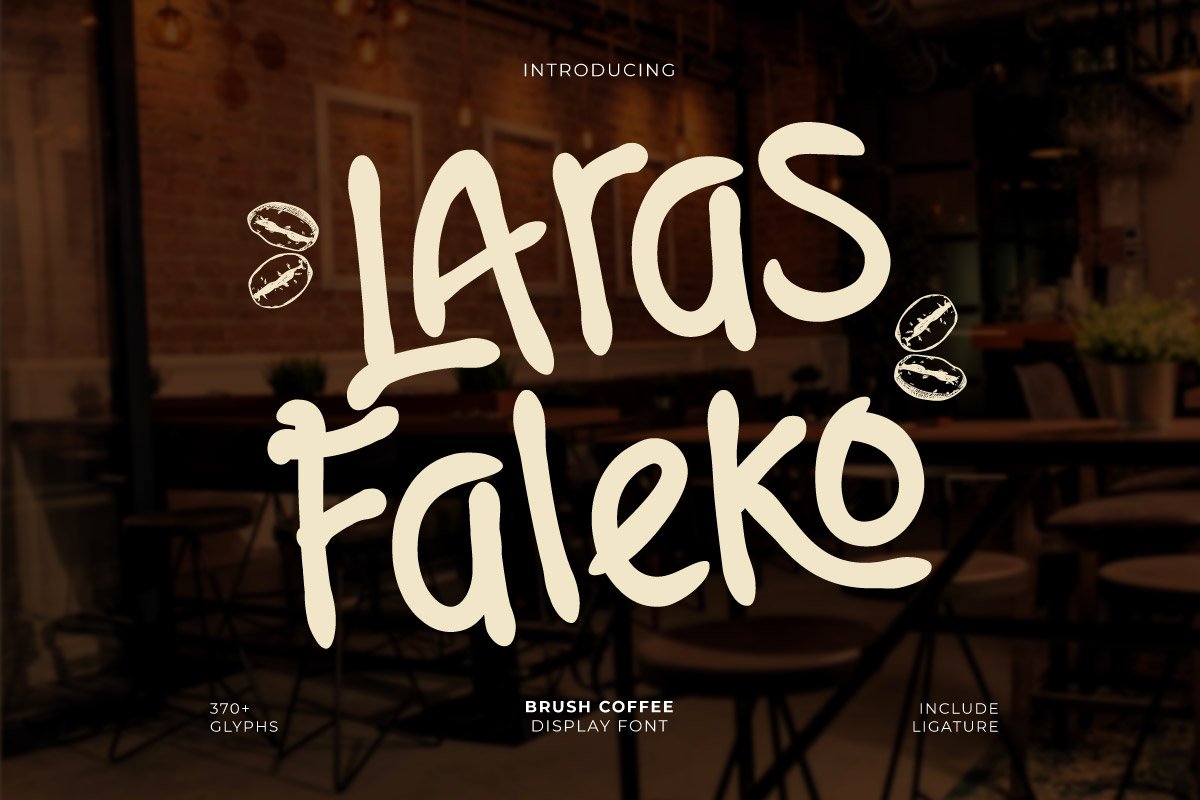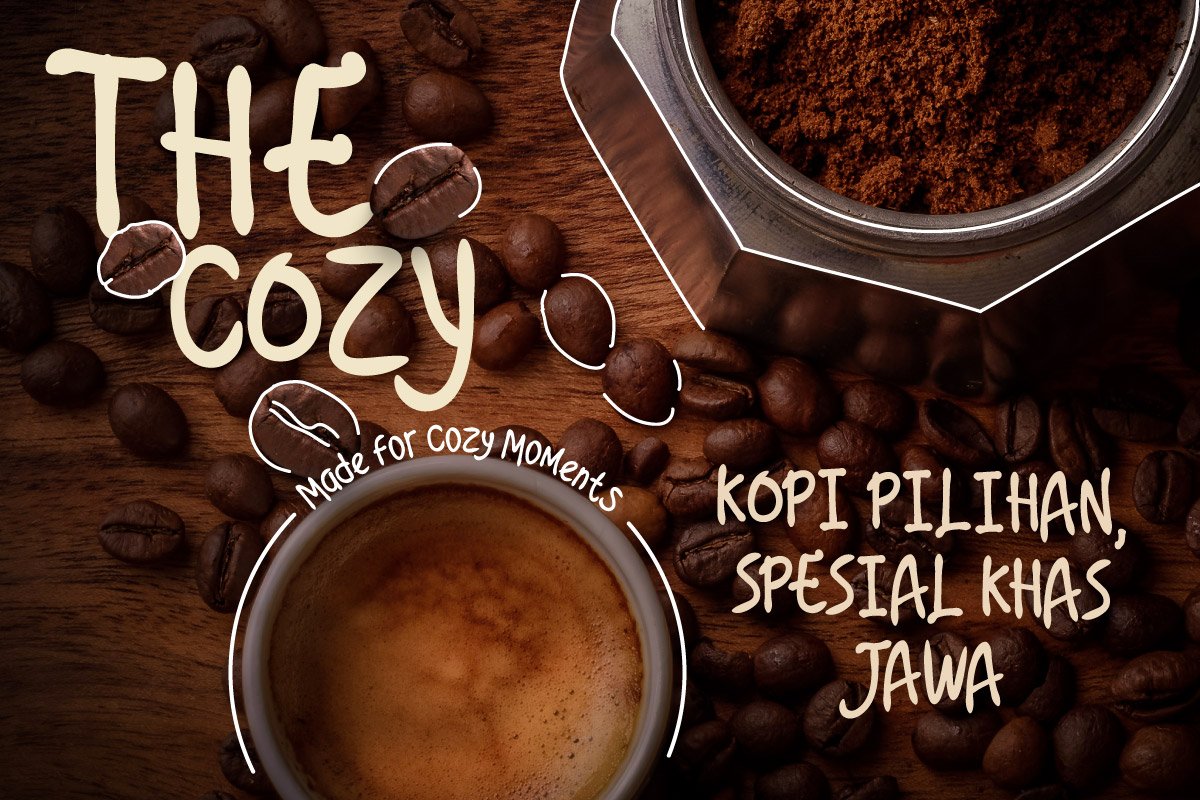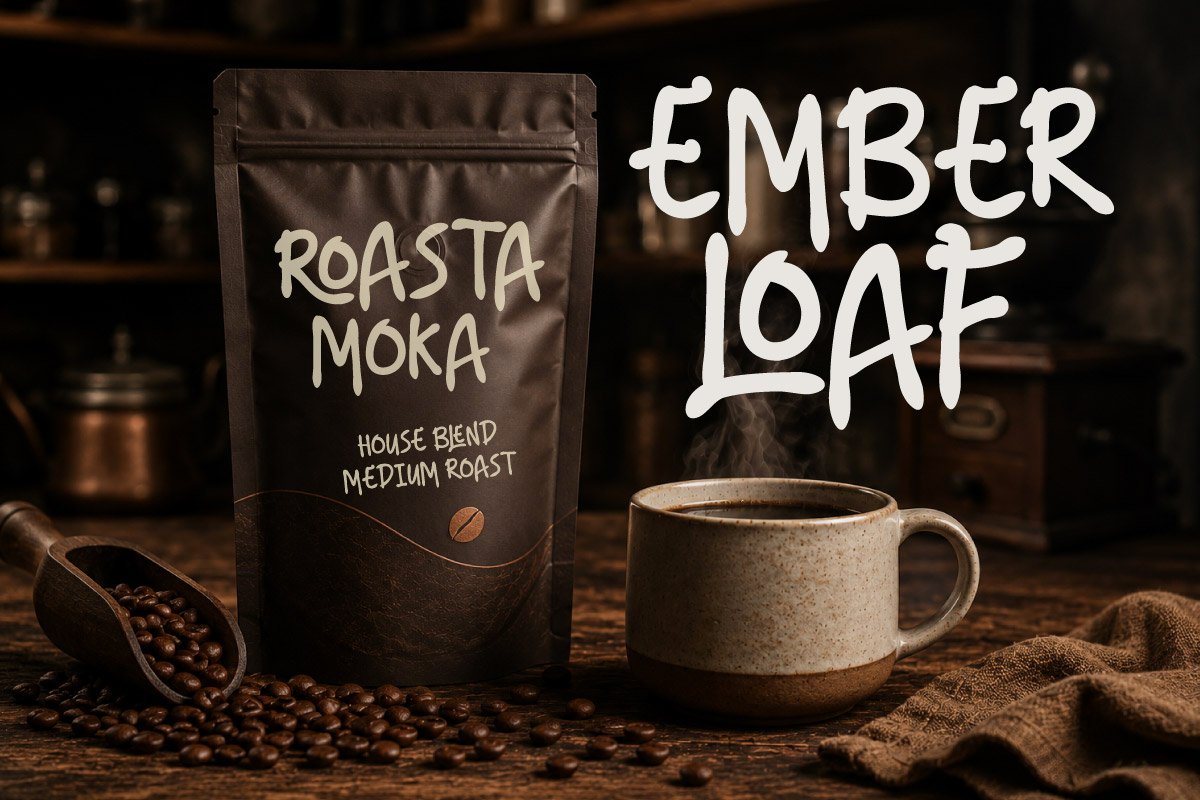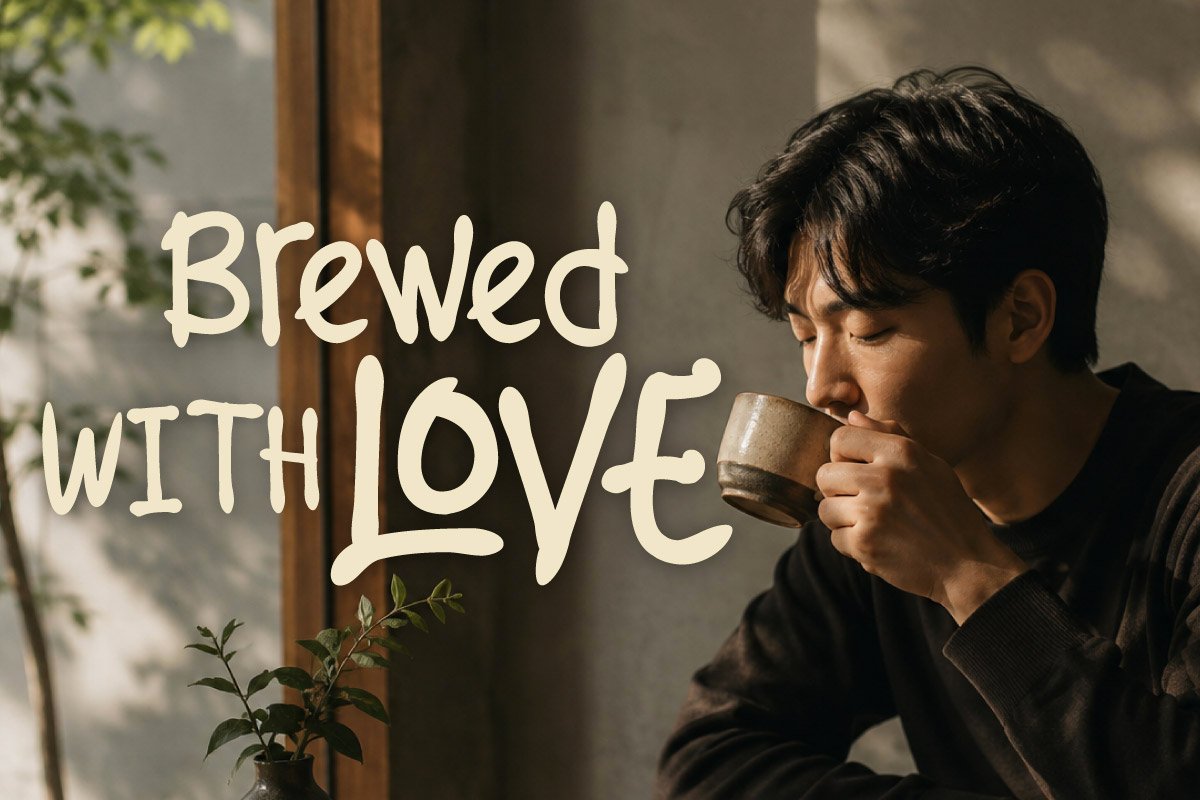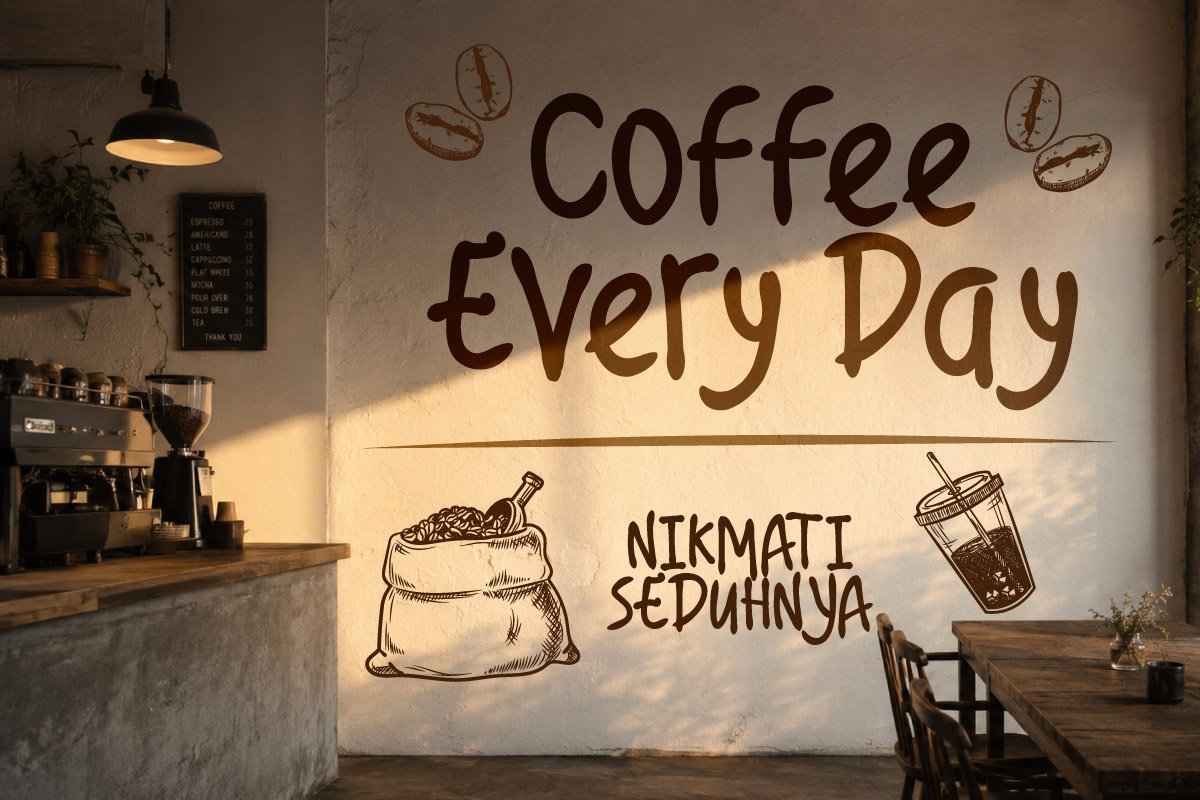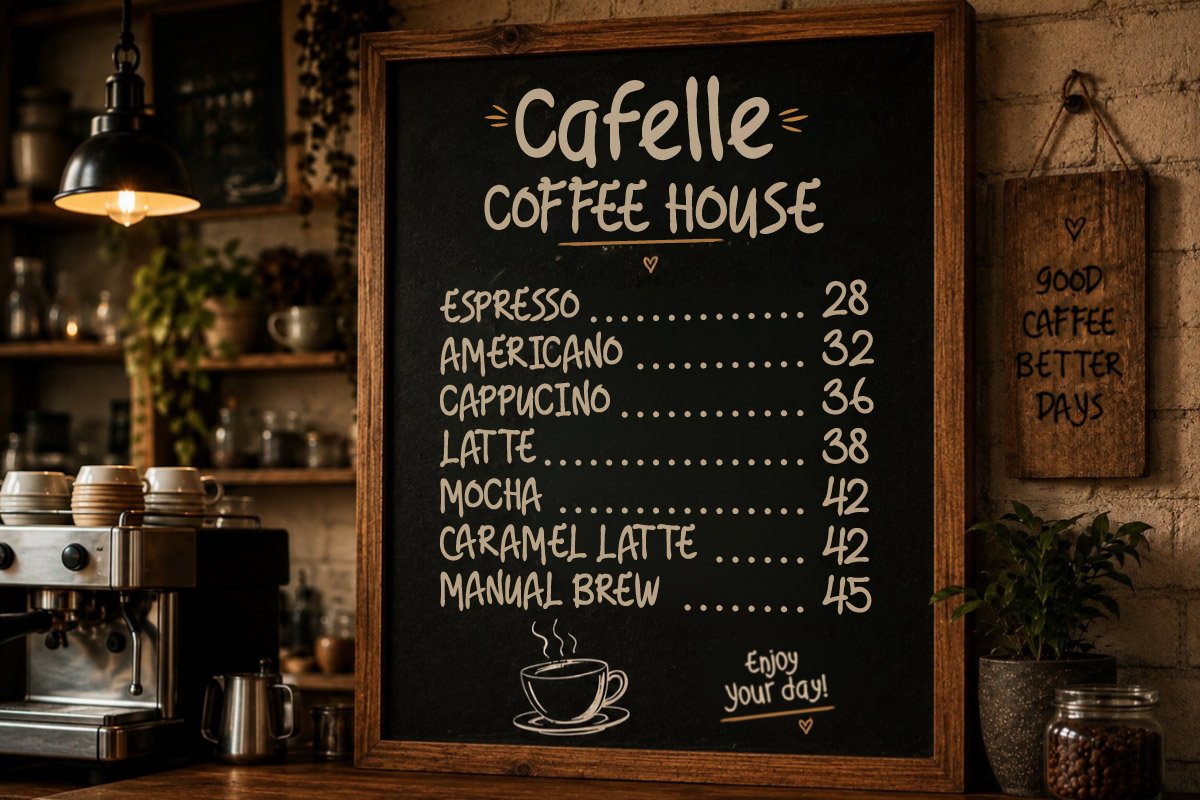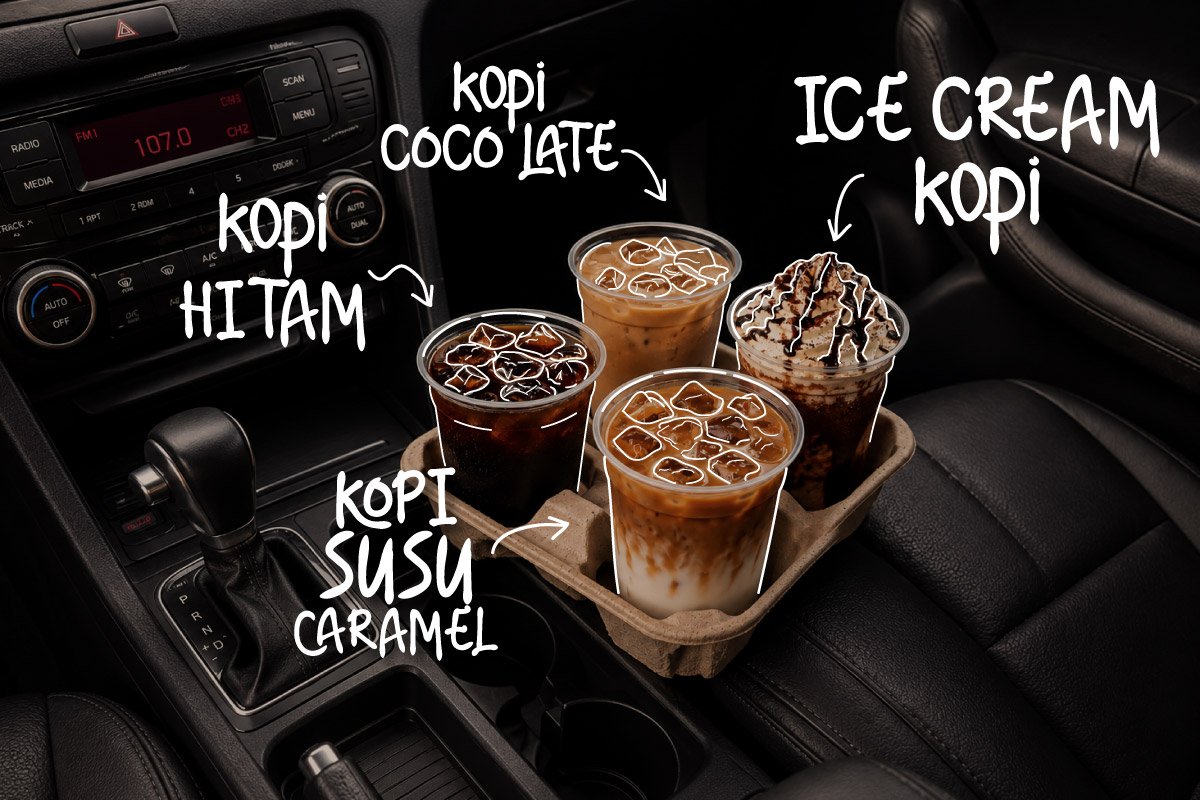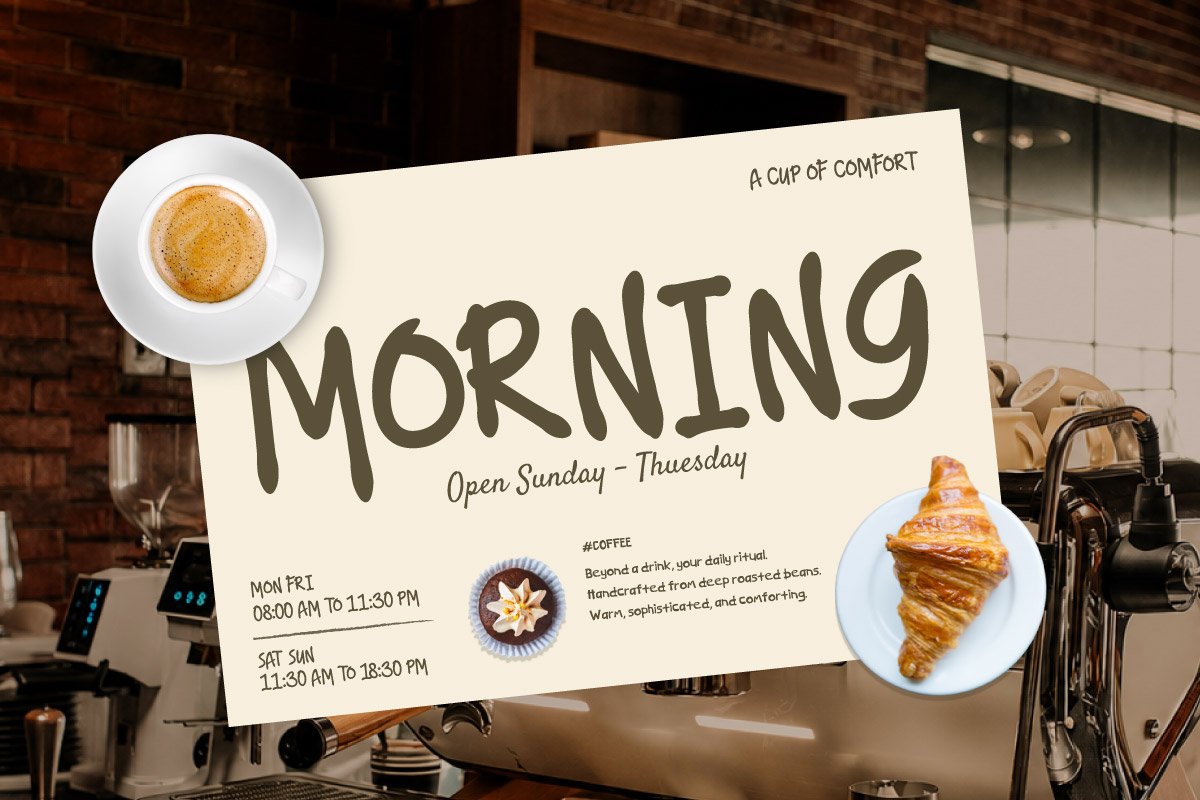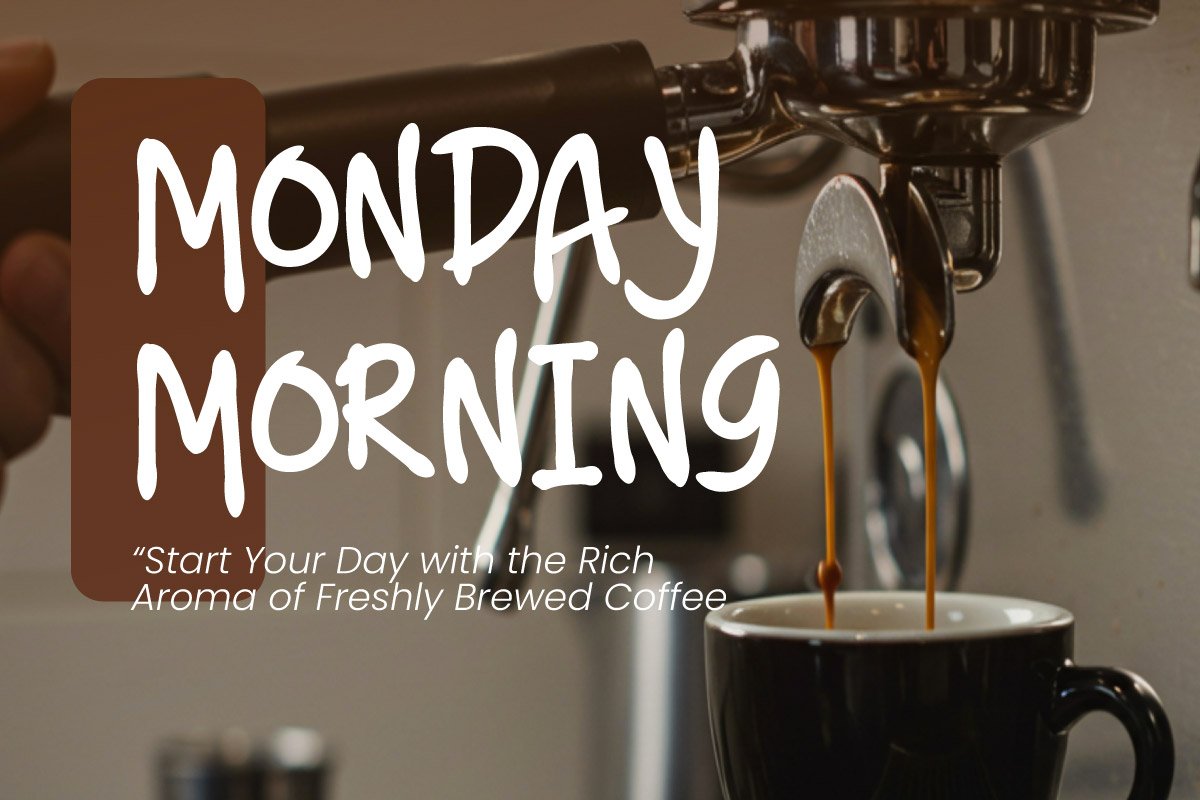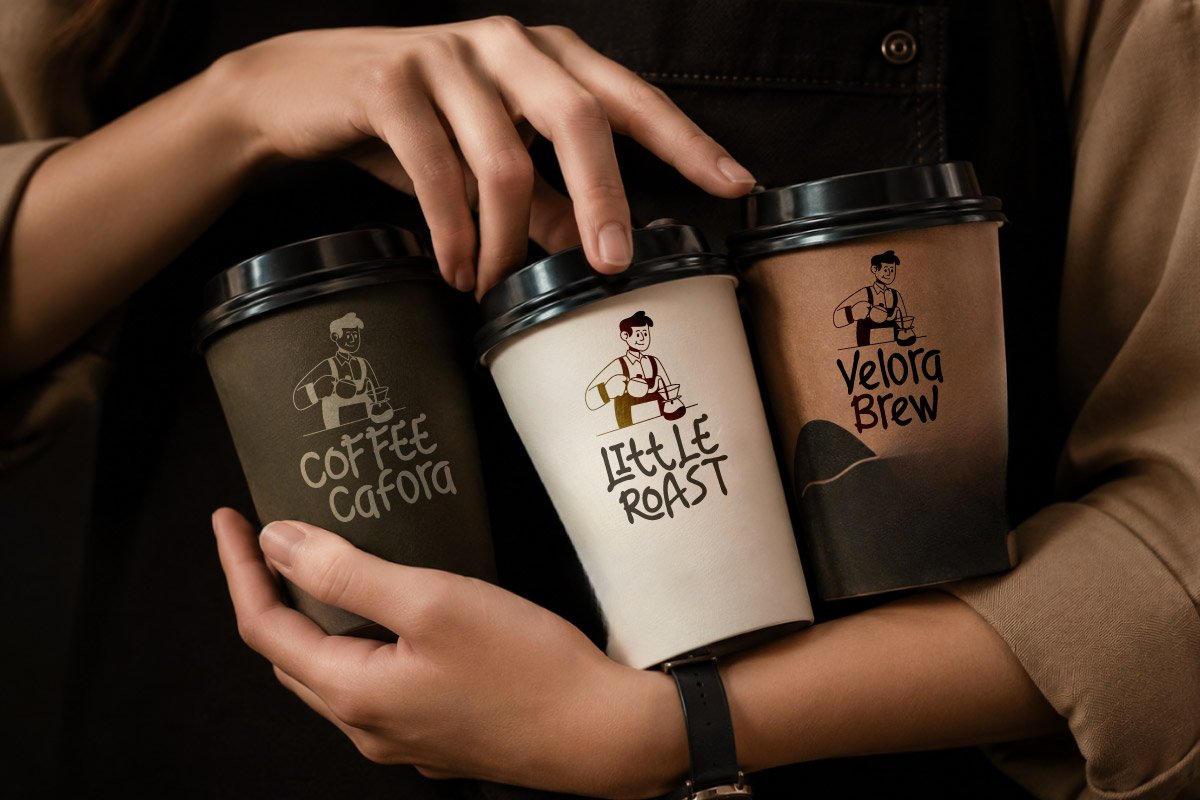
Laras Faleko – Brush Coffee Display Font
Laras Faleko is a striking brush display font that highlights thick, organic, and natural brush strokes. Specifically designed to deliver a warm, cozy, and friendly vibe, this font provides an authentic handcrafted touch that makes your culinary brand’s visual identity feel much closer and more appealing to your customers.
This brush-style lettering collection is highly ideal for various artisanal design needs, ranging from coffee shop branding and local roastery logos to product packaging, cafe menus, and bakery labels. Its excellent legibility also makes it perfect for enhancing printed promotional materials, 3D typography, and graphic UI elements in digital interfaces.
The ultimate choice for culinary business owners, graphic designers, and content creators looking to emphasize a playful and casual aesthetic. Bring a strong visual appeal and create an unforgettable impression on every design element with the unique charm of this typeface.